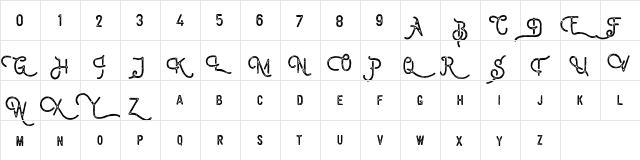
Billyforges Demo Regular
| Foundry | Eric Kurniawan, Ade Meida & I Gusti Widiantara |
| Designer | Burntilldead |
Design Context for Billyforges Demo Typeface
Billyforges Demo is a composed and adaptable typeface that performs quietly and consistently across a wide range of design contexts.